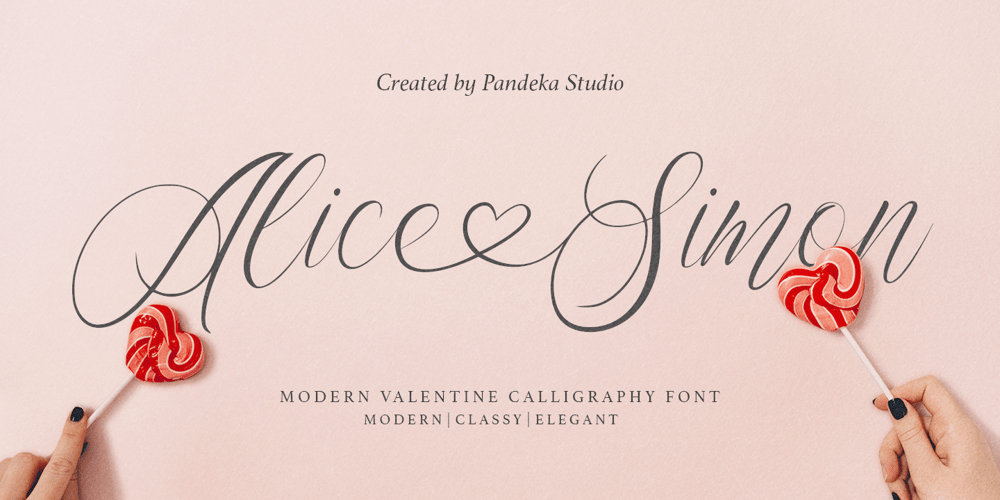
Alice Simon
Alice Simon font
Alice Simon Font Family was designed by Sagara Nararya and published by Pandeka Studio. Alice Simon contains 1 styles and family package options. Alice Simon is a modern calligraphy script perfect for wedding invitations, calligraphy logos for branding, elegant websites, personalizing gifts, social media posts, and anything else your heart desires!Included with Alice Simon is a full set of beginning and ending lowercase swashes, uppercase swashes, and heart connector swashes to create a realistic handwritten calligraphy look for your designs Alice Simon Main Files Any swashes Instructions (Access special characters in all apps, even in Cricut Design) Accessible in Adobe Illustrator, Adobe Photoshop, Microsoft Word even Canva! PUA Encoded Characters. Fully accessible without additional design software Please let me know if you need my questionsThank youPandeka Studio